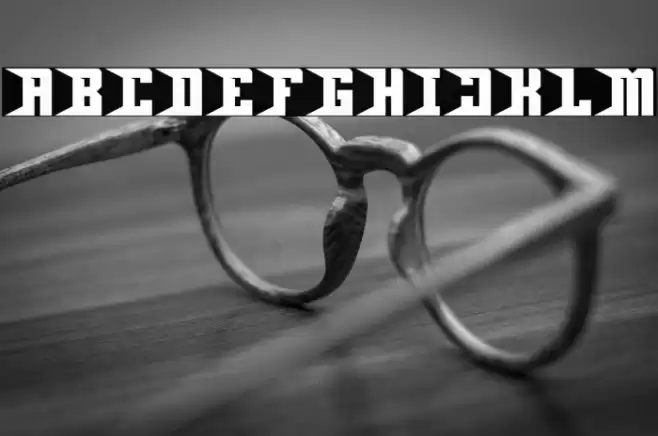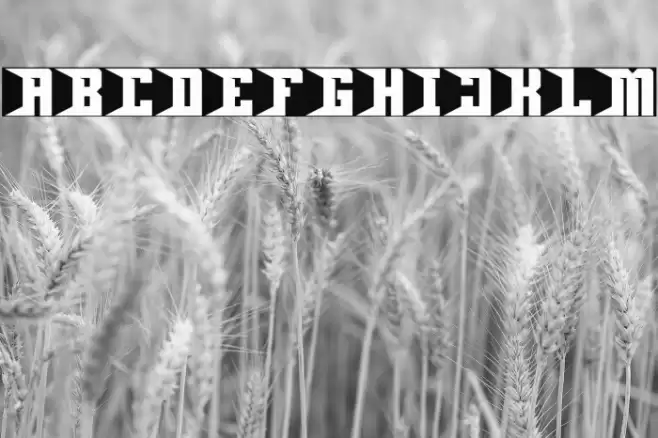
Robus Font
Robus Description
This font features a bold, angular design with a strong geometric influence. The uppercase letters are characterized by sharp edges and pointed serifs, creating a striking and aggressive appearance. The boldness of the characters is consistent throughout, giving the font a powerful and commanding presence. The style is reminiscent of modern gothic or industrial design, making it suitable for projects that require a bold statement. The font's unique structure and heavy weight make it ideal for attention-grabbing headlines or logos that need to stand out.
A bold, angular font with a modern gothic style, perfect for striking headlines from Uncategorized fonts.
- Font: Robus
- Proposed Projects: Ideal for branding, poster design, album covers, and any project needing a bold, impactful typeface.
- Overall Style: Modern Gothic